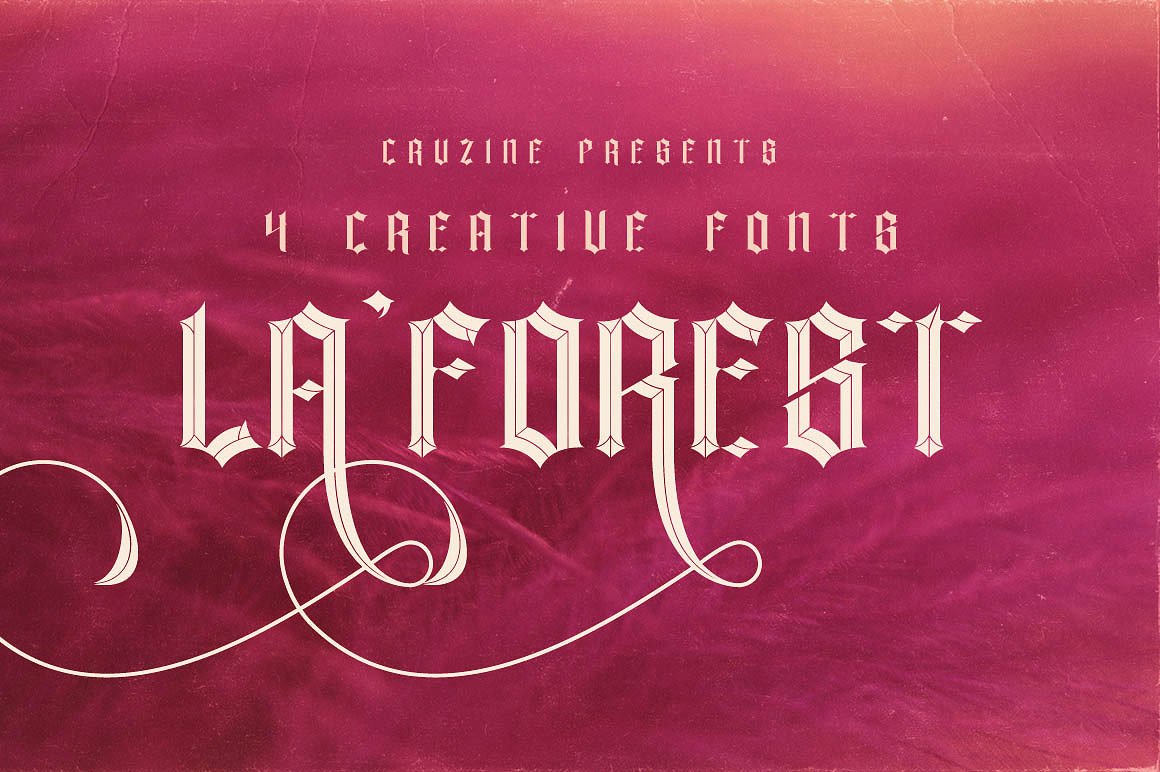
La Forest Typeface
Blackletter & vintage style display font for your new projects. Great for retro/vintage projects!
| Designer Name: | Cruzine |
| Classification: | Blackletter / Gothic Fonts, Decorative Fonts, Display Fonts |